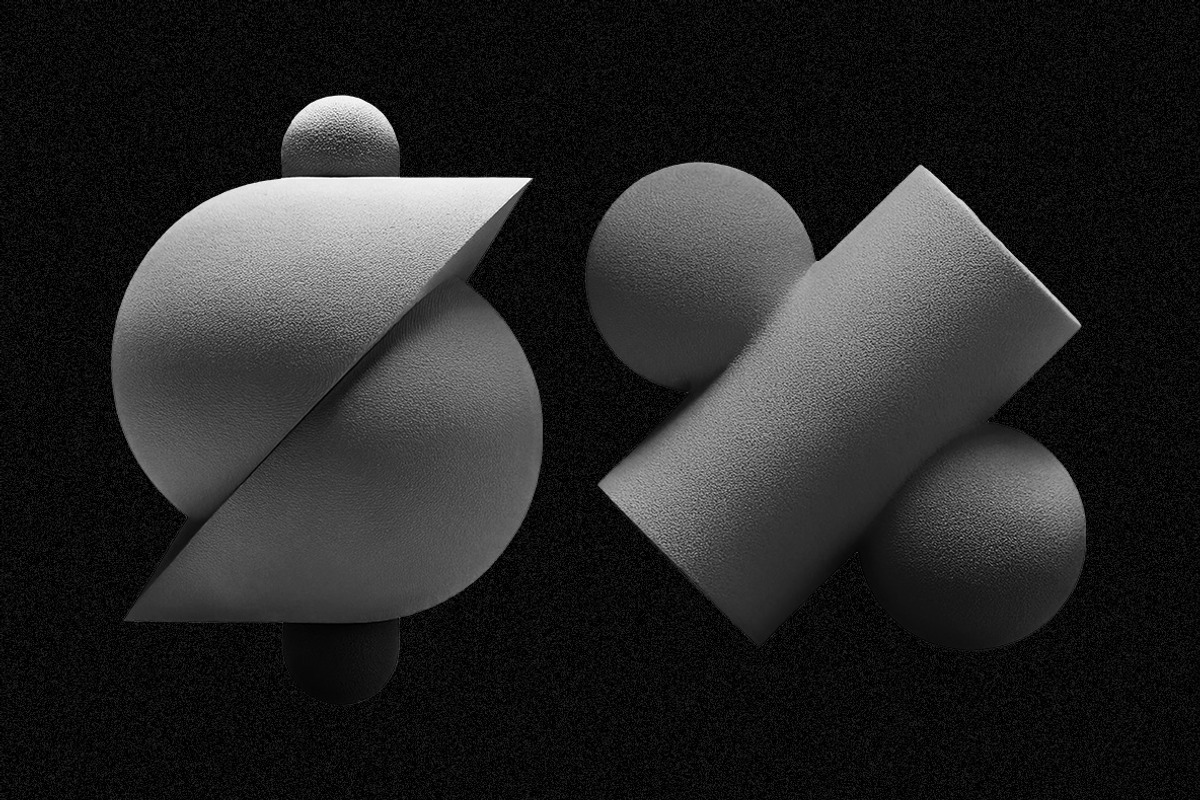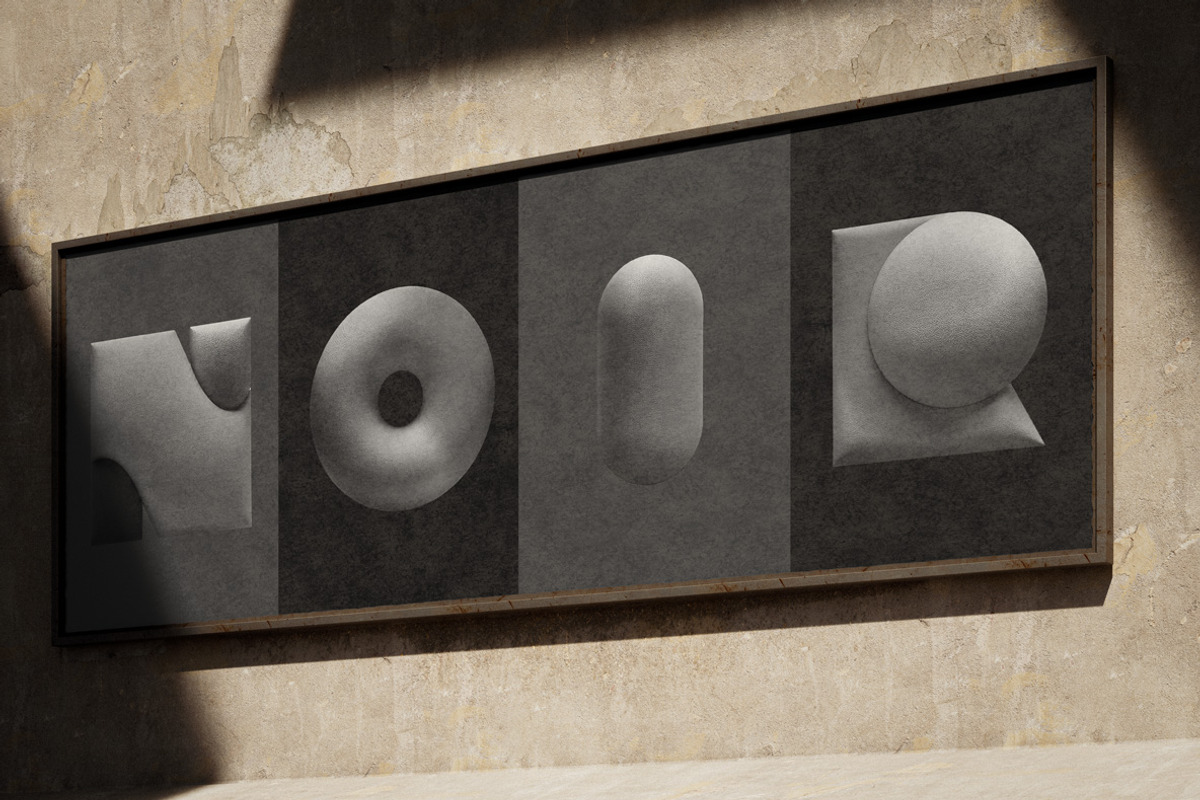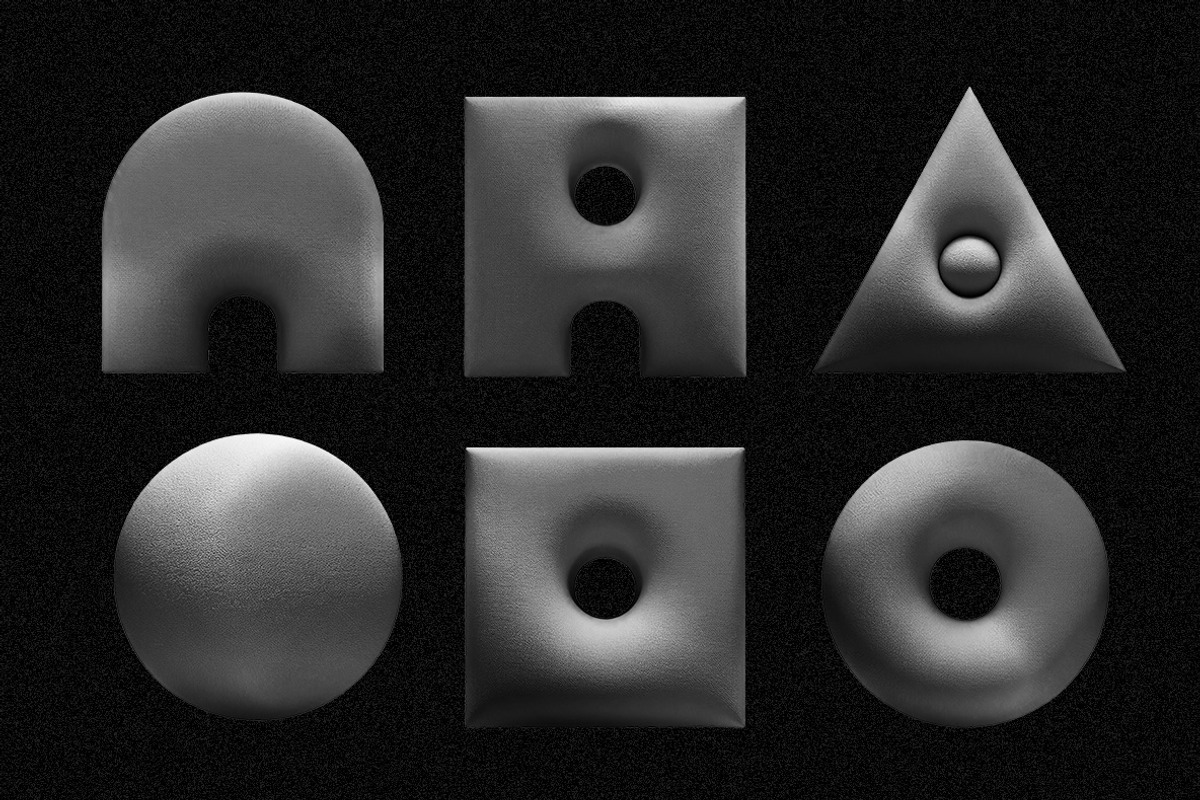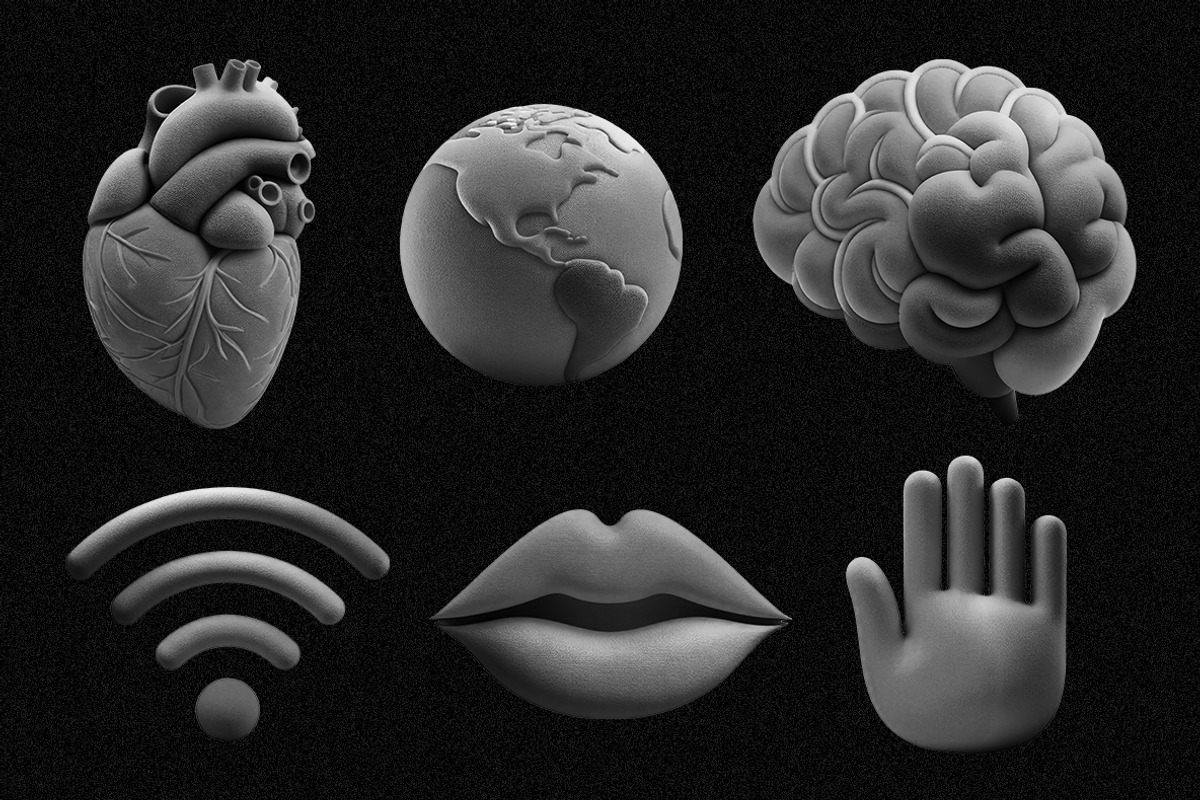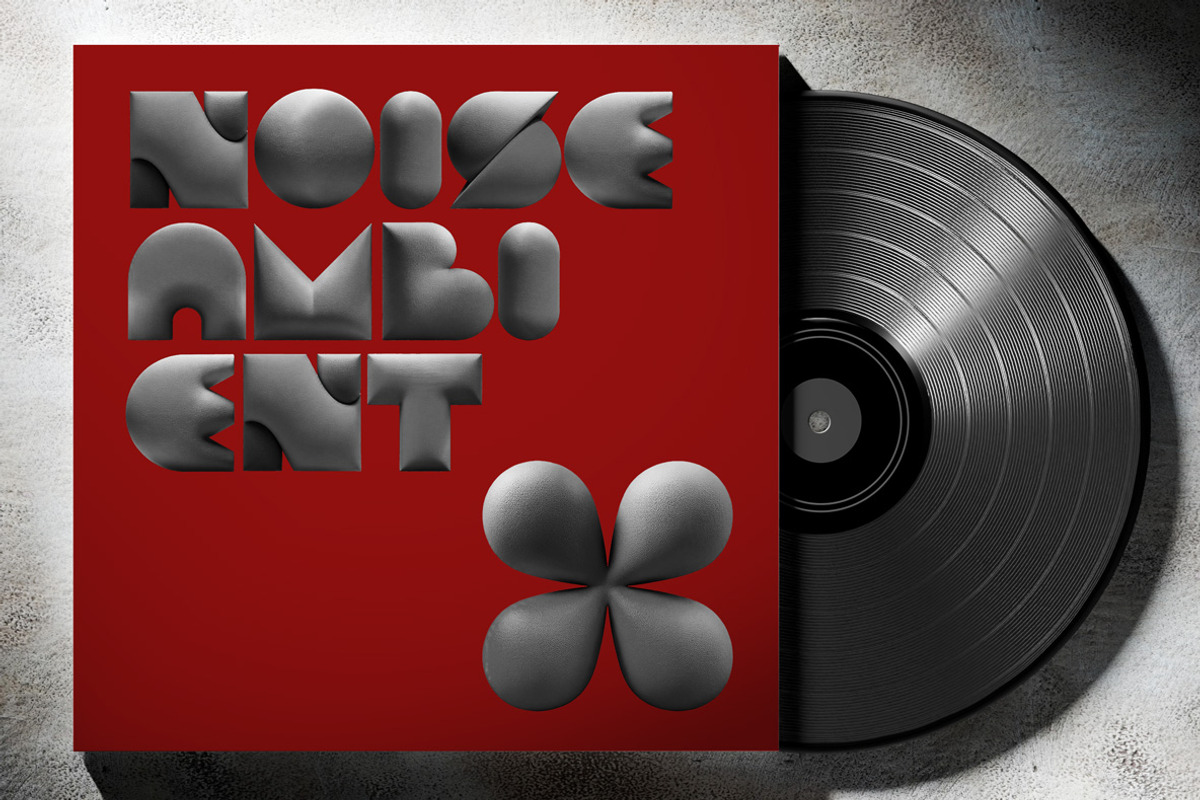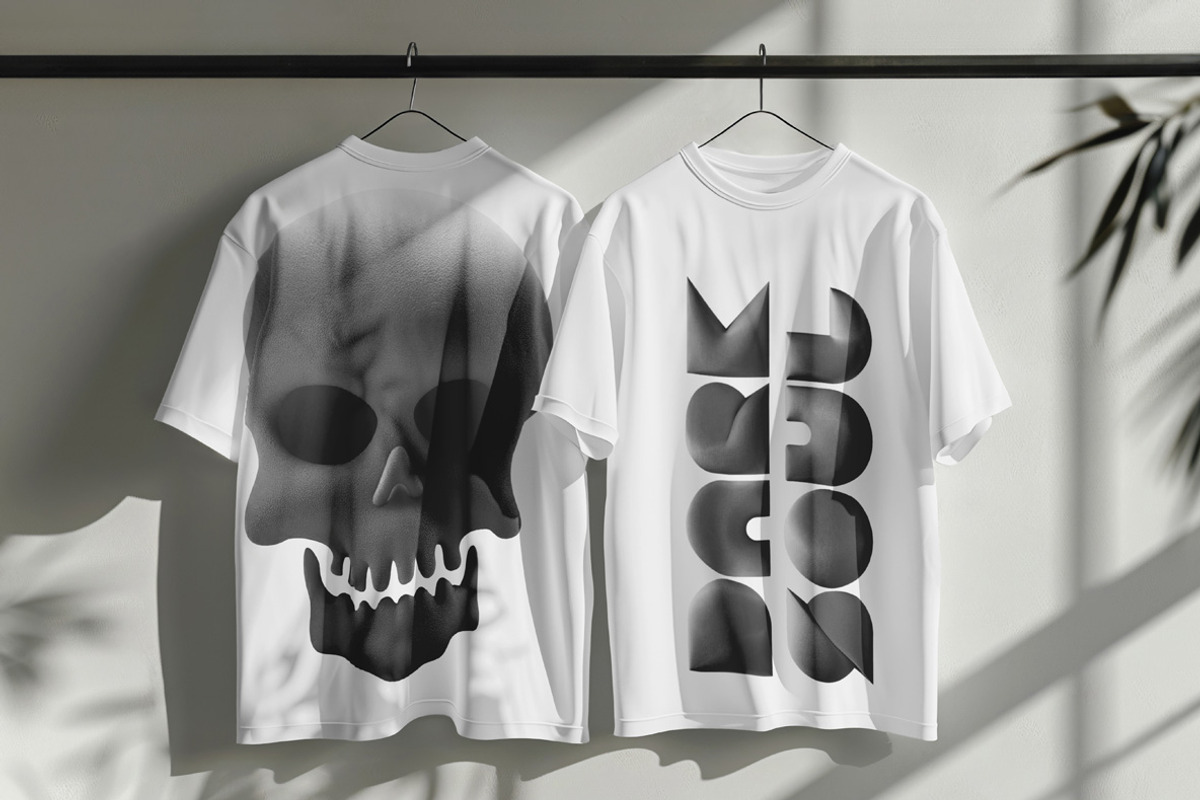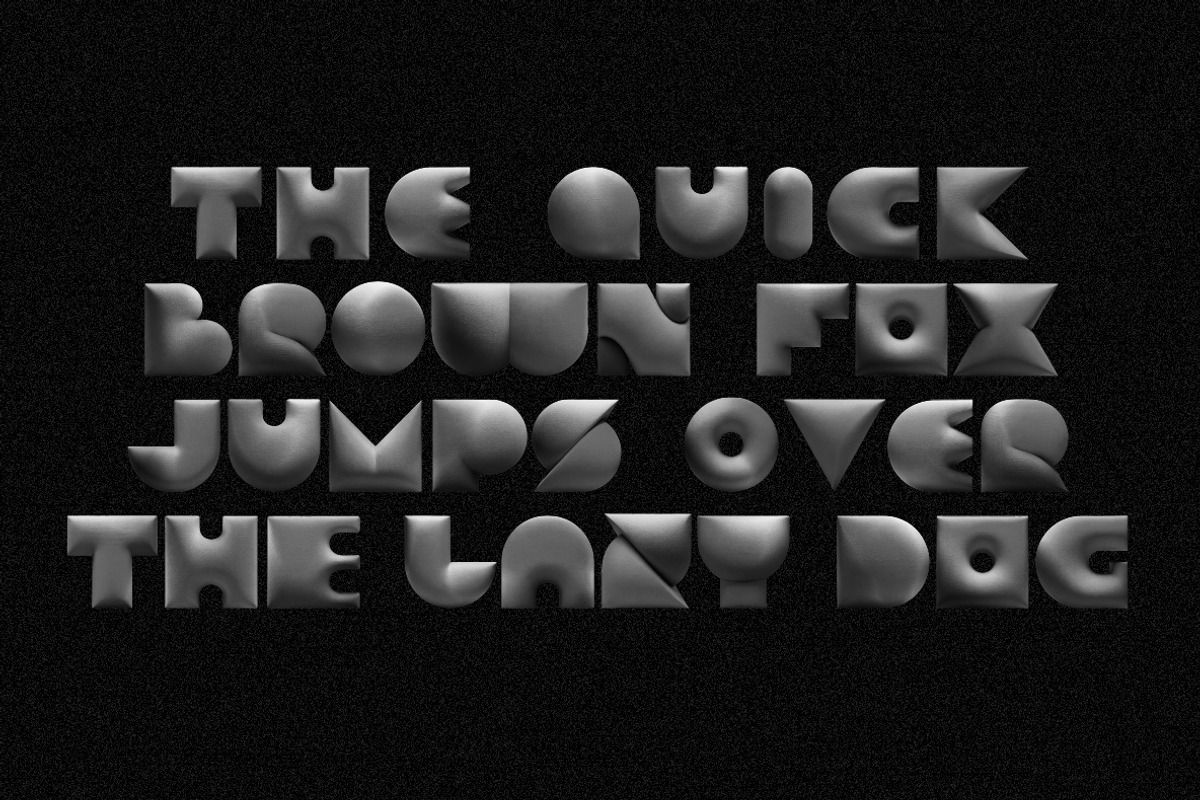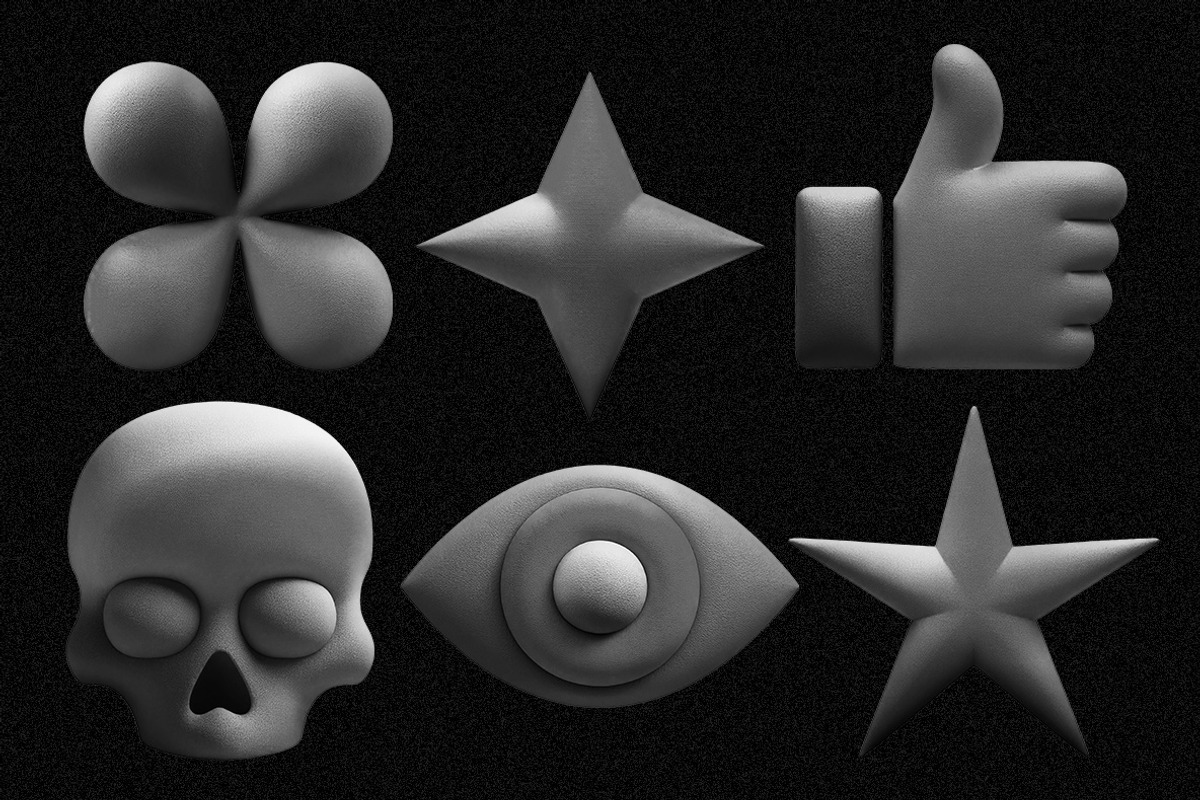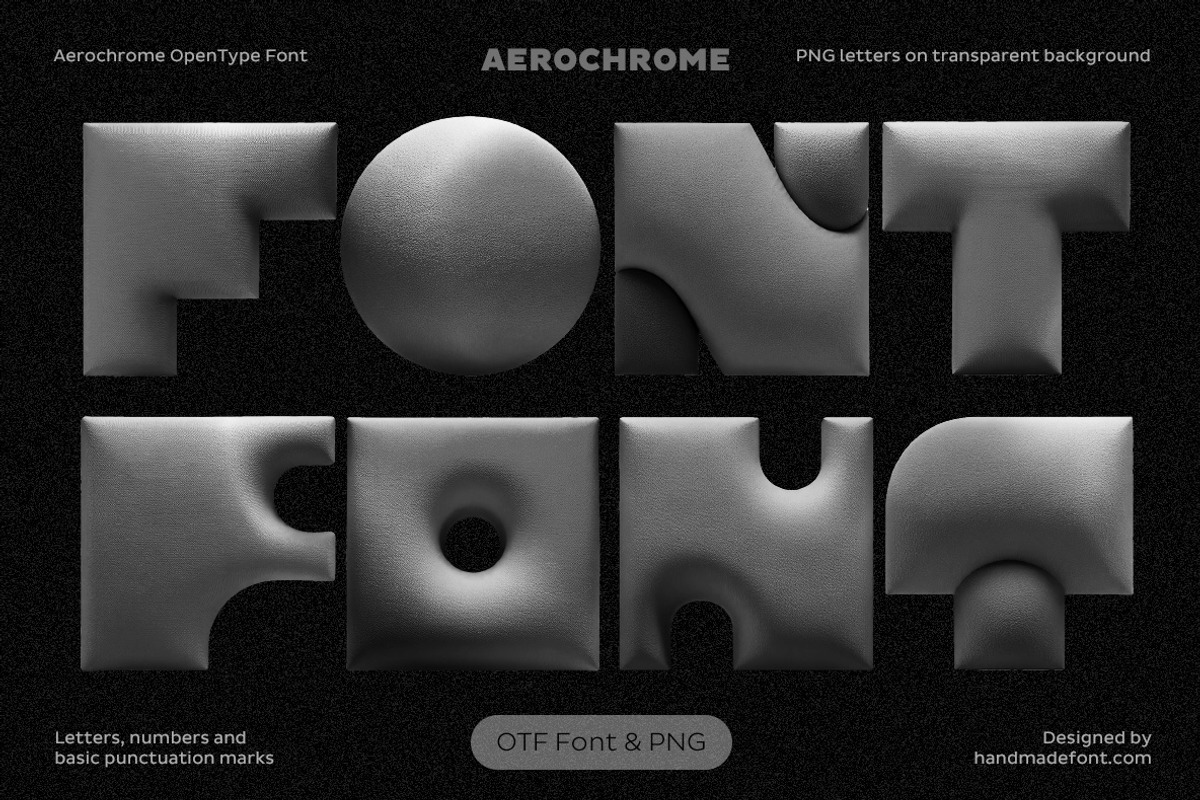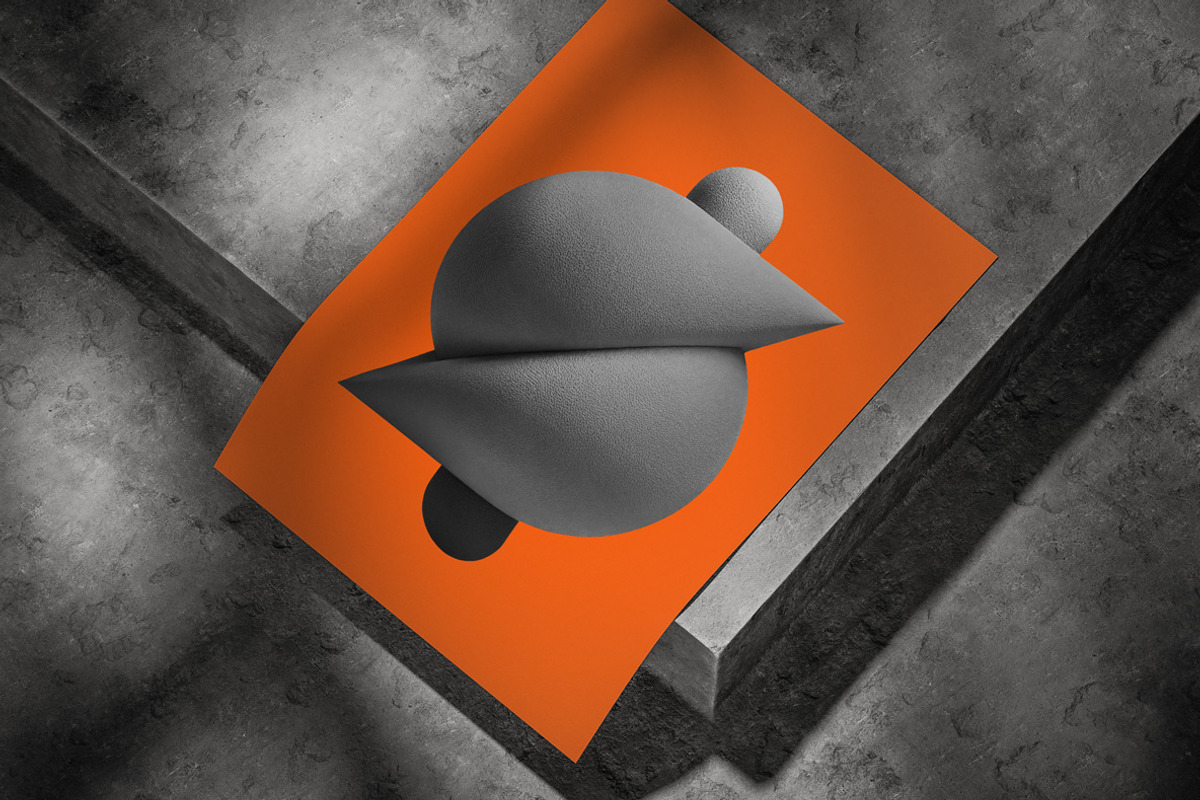
Aerochrome Font
Meet Aerochrome Font — the bold rebel of modern typography. With plump, pillowy shapes and glossy curves that look airbrushed by the future, this typeface doesn’t just make a statement — it shouts it in style. Equal parts sci-fi, streetwear, and surreal softness, Aerochrome brings playful sophistication to any edgy design. Perfect for posters, album covers, experimental branding, or anything that needs a touch of the unexpected. It’s like bubble wrap made by aliens with a design degree. Use Aerochrome when Helvetica is too shy and Comic Sans is too... Comic Sans. Funky, fearless, and full of flair — that’s Aerochrome.